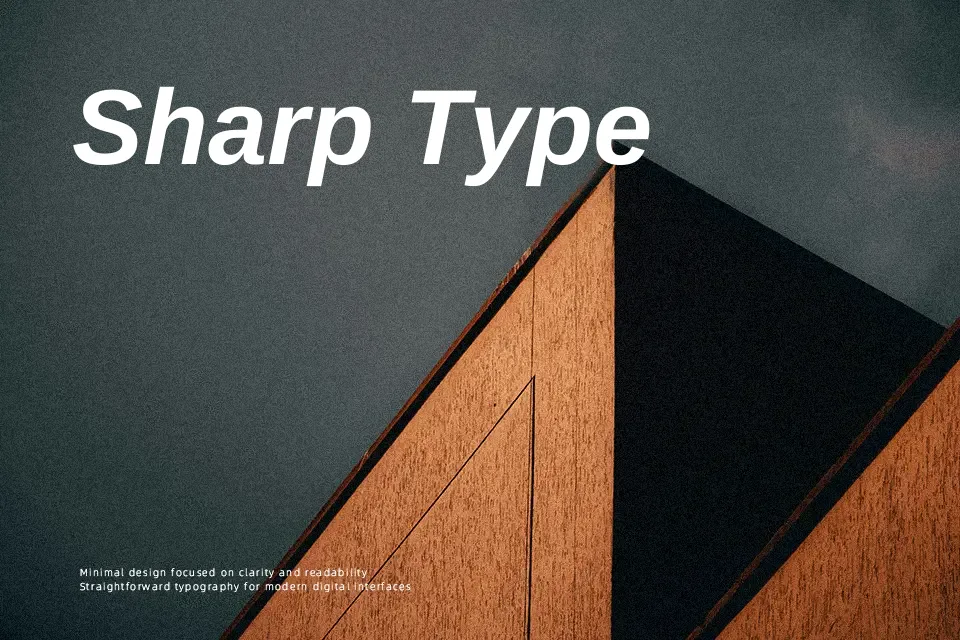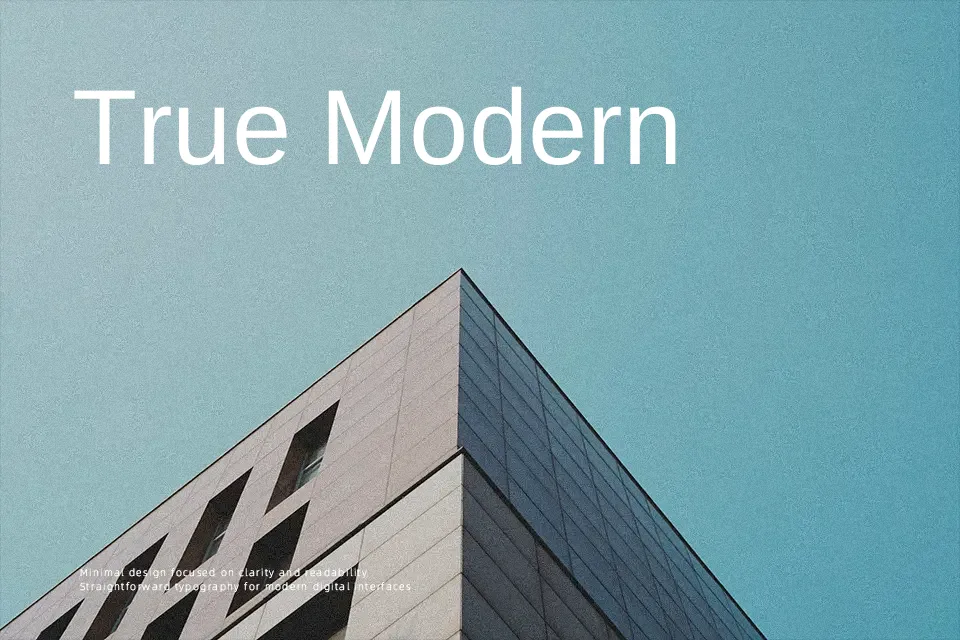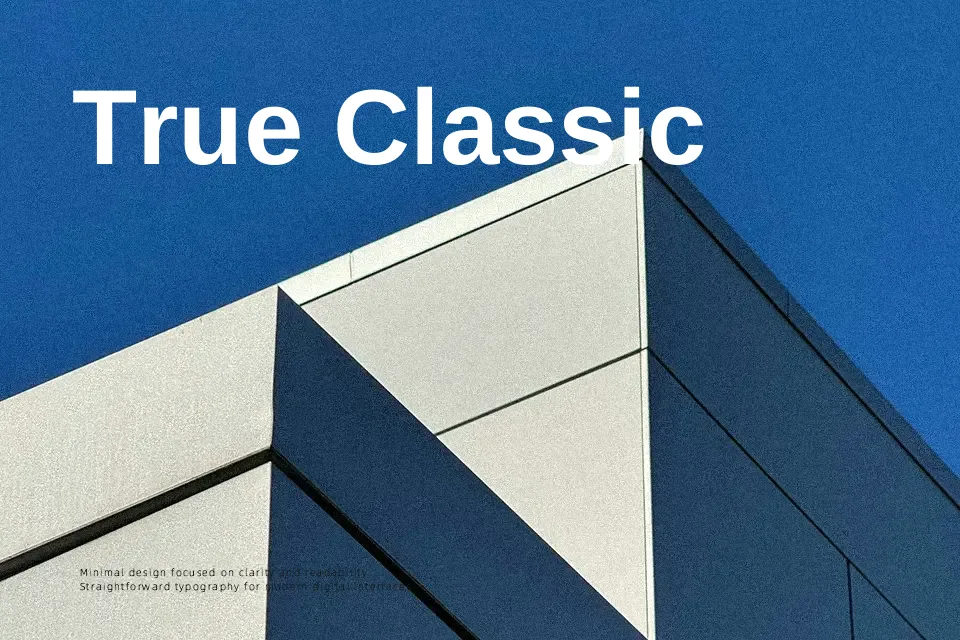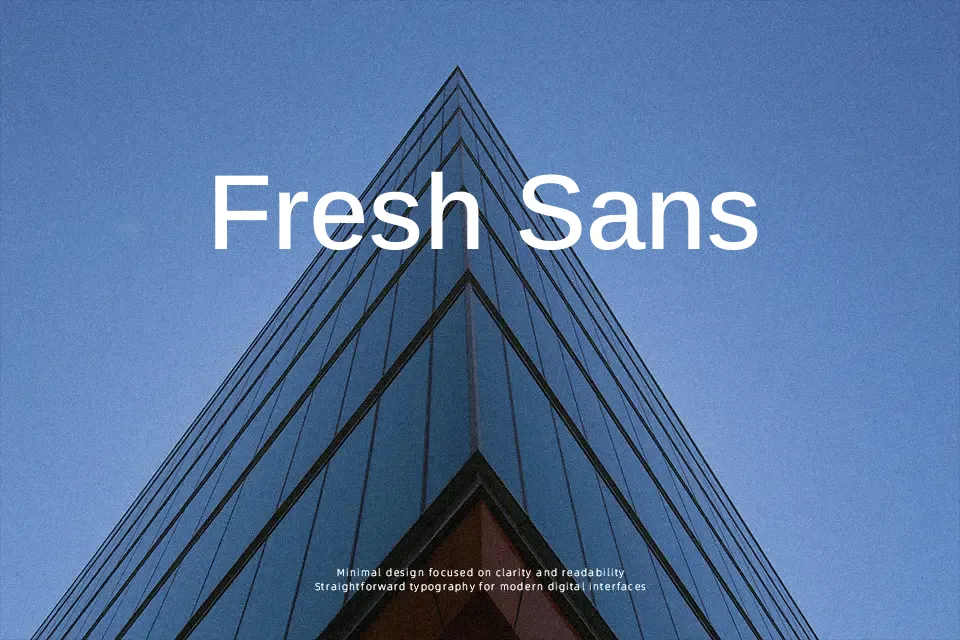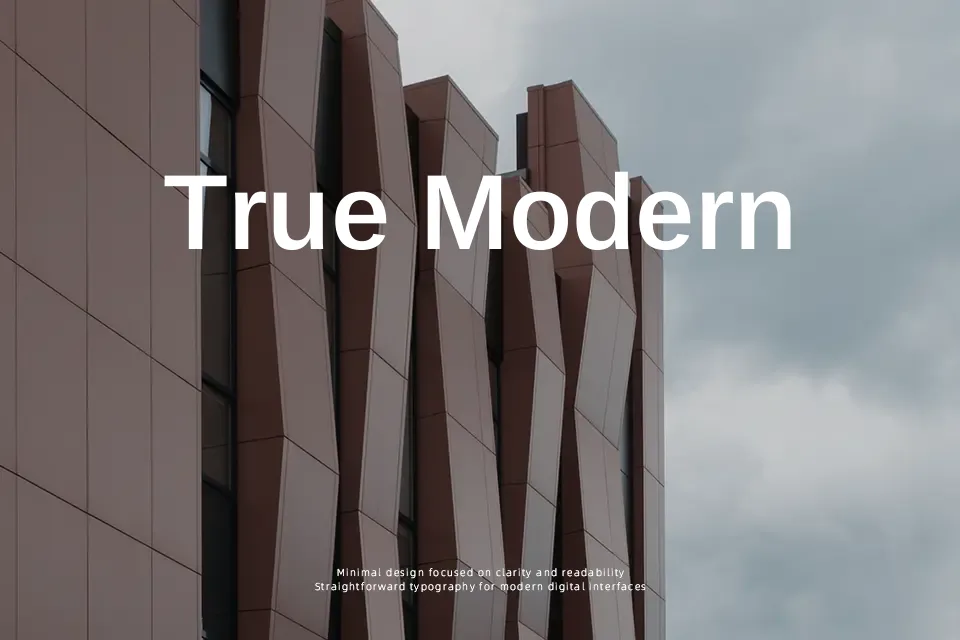
Arimo Font
Designed by Steve Matteson
Arimo is a neo‑grotesque sans serif with even stroke widths, open counters, and slightly condensed proportions that echo the rhythm of Arial while feeling a bit calmer and more contemporary. The spacing is tuned for legibility at small sizes, so UI labels, dashboards, and dense corporate presentations stay readable without wasting space. Its neutral, professional character works when you want typography to support the content rather than become the star, for example in product UIs, intranet portals, or multilingual reports where consistency matters. If you are designing expressive branding, playful kids packaging, or heavily stylized posters, Arimo can feel too plain and anonymous, so it fits better as a workhorse companion than a display hero.
user interfaces and dashboards
corporate documents and reports
multilingual digital products
presentation slides and infographics
expressive logo wordmarks
highly decorative posters
luxury fashion branding
Perfect for body text, editorial, and headline, with a clean and sans serif style.